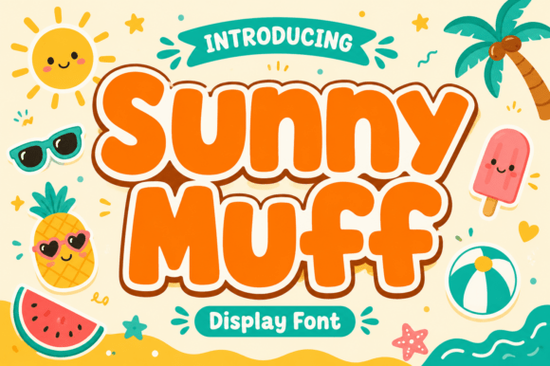
When you're looking for a font that captures the essence of summer, Sunny Muff is a perfect choice. This vibrant display font brings a warm, friendly, and lively vibe to any design project, making it ideal for a variety of creative uses.
Why Choose Sunny Muff for Your Summer Designs?
Sunny Muff is not just another font; it's a typeface that radiates an effervescent, summer feel. The bold letters with sleek, curving finishes add a playful and inviting touch to your designs. Whether you're working on children's merchandise, beach-themed concepts, or laid-back summer gatherings, Sunny Muff can bring a fresh and charming atmosphere to your projects.
Perfect for Children's Merchandise
Designing for kids requires a font that is both fun and engaging. Sunny Muff’s playful and energetic style makes it an excellent choice for children's books, educational materials, and even clothing. The font’s friendly and vibrant personality can help make your designs more appealing to young audiences.
Ideal for Beach-Themed Concepts
If you're working on a beach-themed project, Sunny Muff can be a great addition. The font’s lively and summery vibe complements beach-related designs, such as posters, flyers, and social media graphics. Imagine using this font for a summer party invitation or a beachside event flyer it instantly adds a sunny and cheerful touch.
Enhance Packaging and Branding Campaigns
For small businesses and print-on-demand sellers, packaging and branding are crucial. Sunny Muff can rejuvenate your packaging designs, making them stand out with its unique and vibrant style. Whether you're designing labels, boxes, or promotional materials, this font can help create a memorable and appealing brand identity.
How to Use Sunny Muff in Your Projects
Incorporating Sunny Muff into your designs is straightforward. Here are some tips to get the most out with this versatile font:
- Combine with Complementary Fonts: Pair Sunny Muff with simpler, more neutral fonts to create a balanced and harmonious design. For example, you might use Lazy Daze for a more relaxed feel or Zombora for a bit of edge.
- Use for Headings and Titles: Sunny Muff works well for headings and titles, where its bold and eye-catching style can grab attention. Use it for blog post titles, social media graphics, and other prominent text elements.
- Experiment with Colors: Play around with different color schemes to enhance the summer vibe. Bright, pastel colors or shades of blue and yellow can complement the font’s lively and cheerful nature.
Other Creative Uses for Sunny Muff
Beyond the typical uses, Sunny Muff can be creatively applied in various ways:
- Invitations and Greetings: Use Sunny Muff for wedding invitations, birthday cards, and other special occasion greetings. Its warm and friendly style can make your messages more personal and inviting.
- Website and Blog Graphics: Enhance your website or blog with Sunny Muff. Use it for banners, call-to-action buttons, and other graphic elements to add a touch of vibrancy and charm.
- DIY Craft Projects: For crafters, Sunny Muff can be a delightful addition to DIY projects. Use it for stencils, custom t-shirts, and other handmade items to give them a unique and playful look.
Tips for Designers and Small Businesses
Here are some practical tips to help you make the most of Sunny Muff in your design projects:
- Keep It Simple: While Sunny Muff is vibrant and lively, avoid overusing it. Use it sparingly for maximum impact, and pair it with simpler fonts like Choks or Cowboy Zombie.
- Test Different Sizes and Spacings: Experiment with different font sizes and letter spacings to find the best fit for your design. This can help you achieve a clean and professional look.
- Get Feedback: Before finalizing your design, get feedback from others. This can help you refine your use of Sunny Muff and ensure it resonates well with your audience.
By following these tips, you can effectively incorporate Sunny Muff into your designs and create projects that are both visually appealing and engaging. Happy designing!